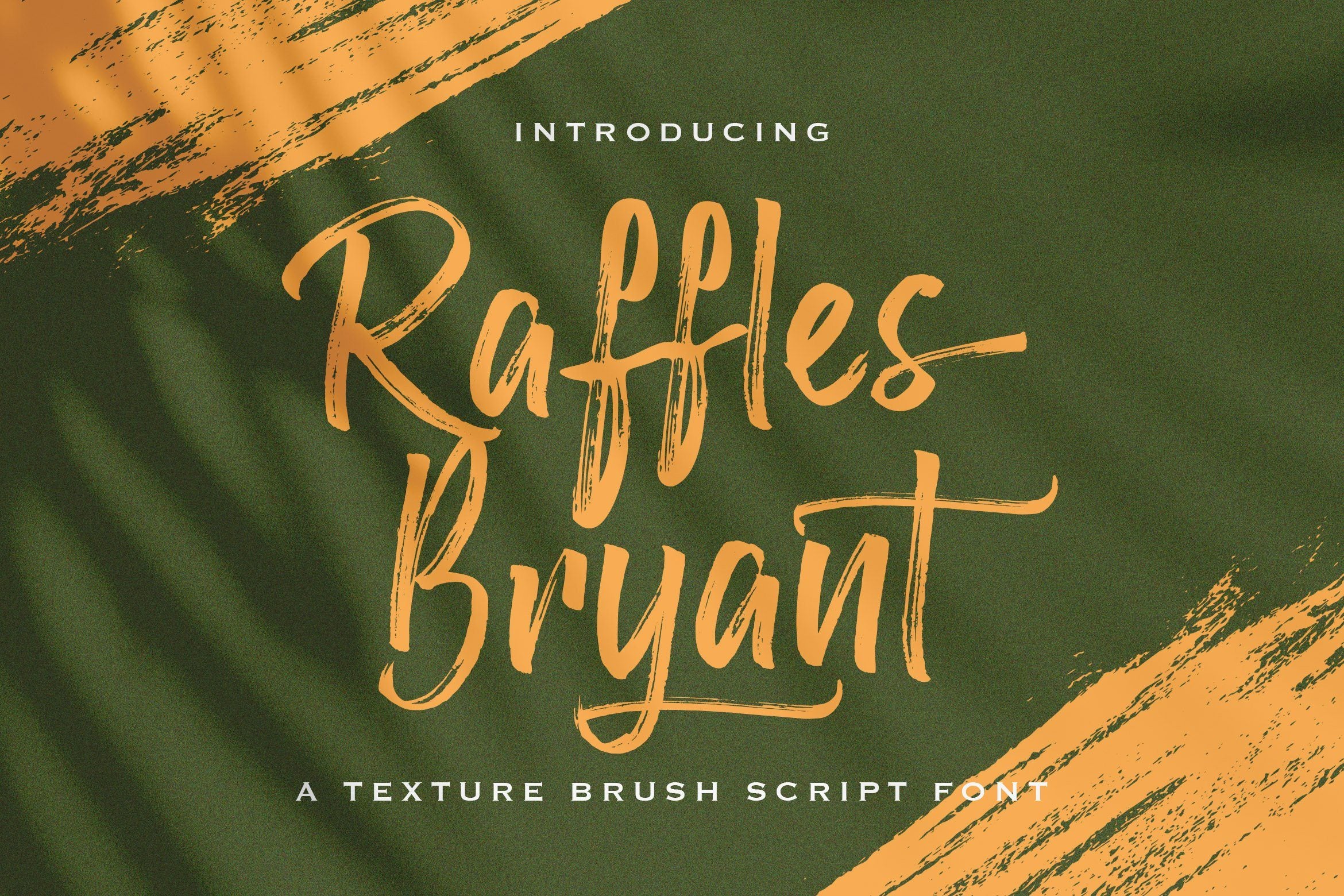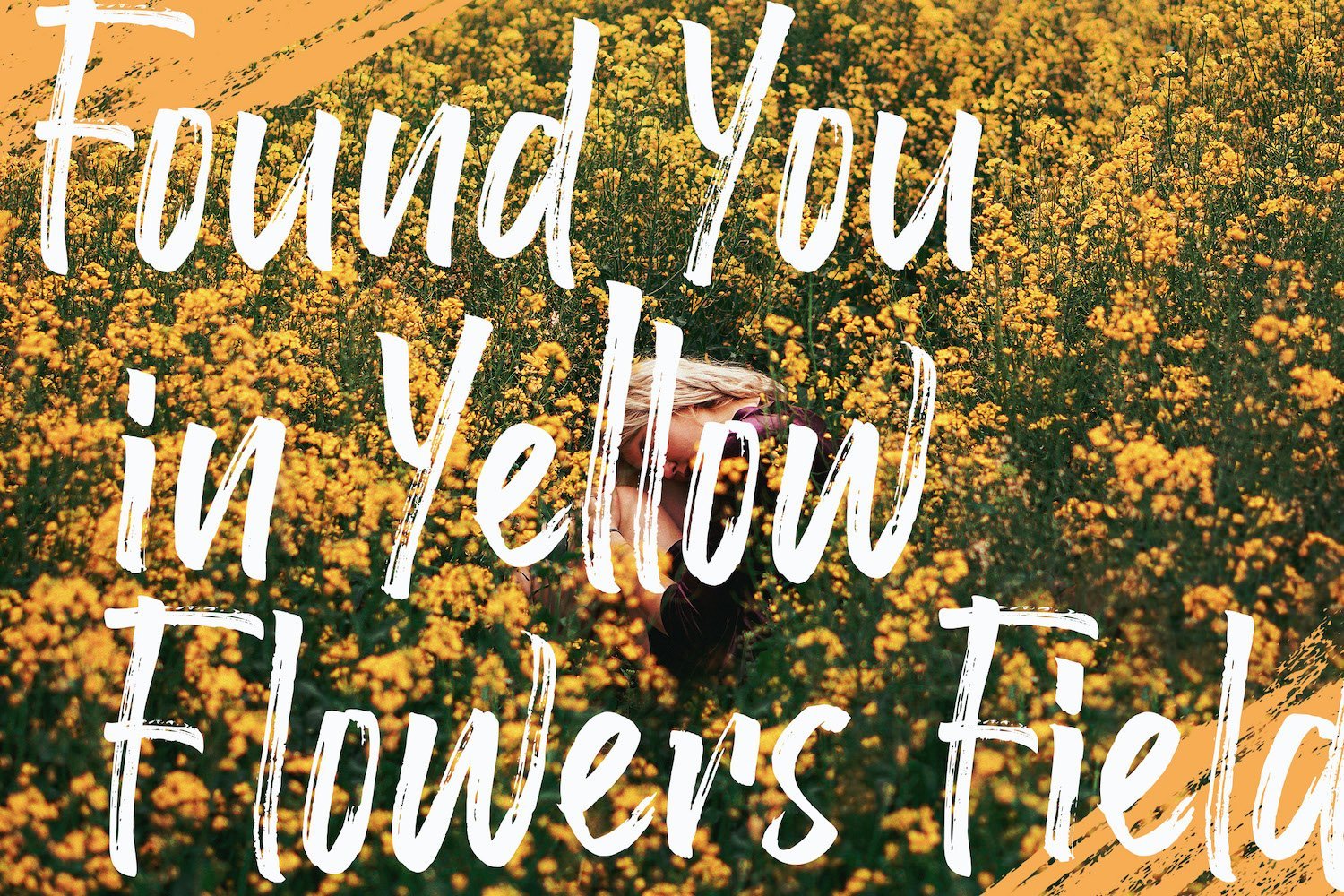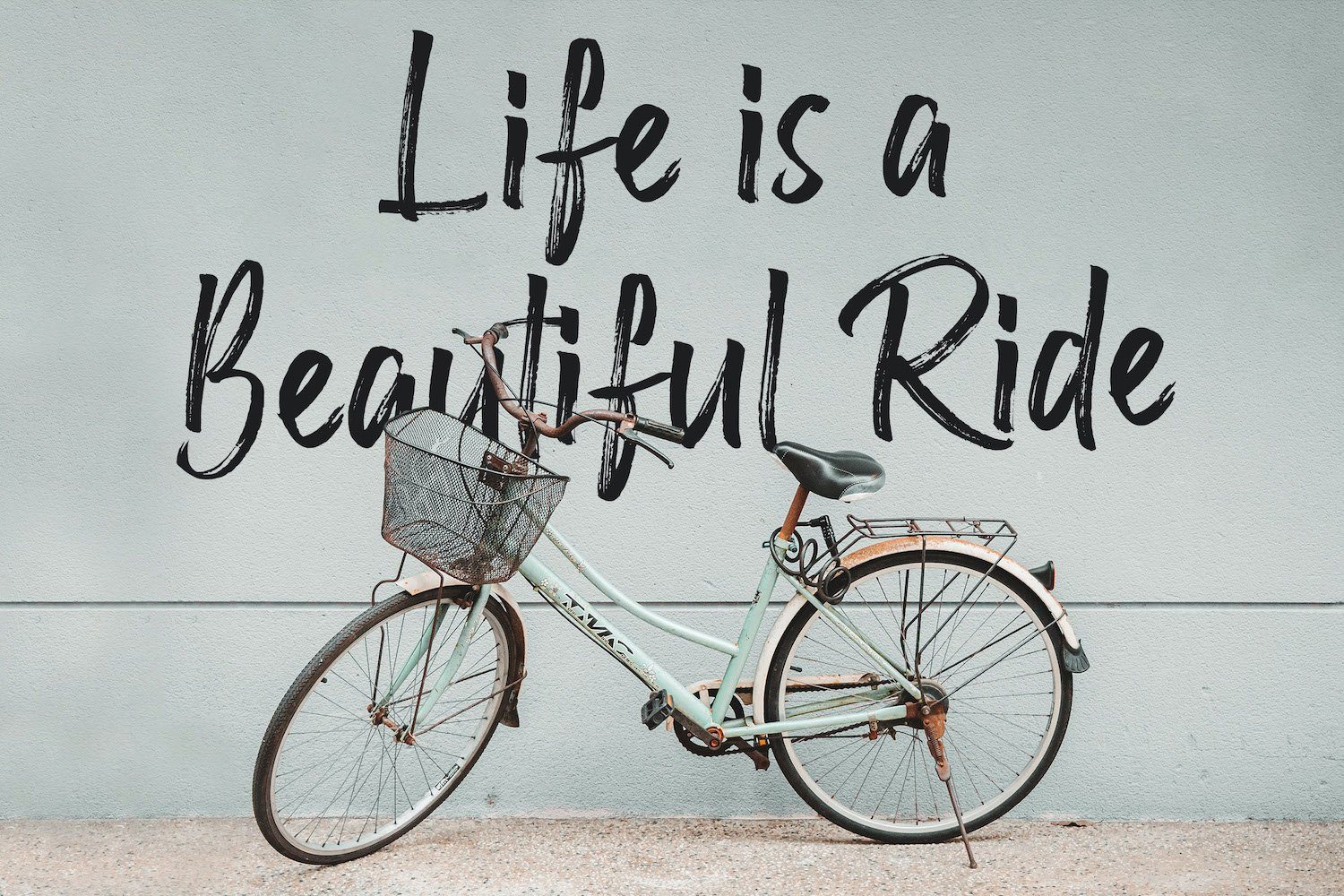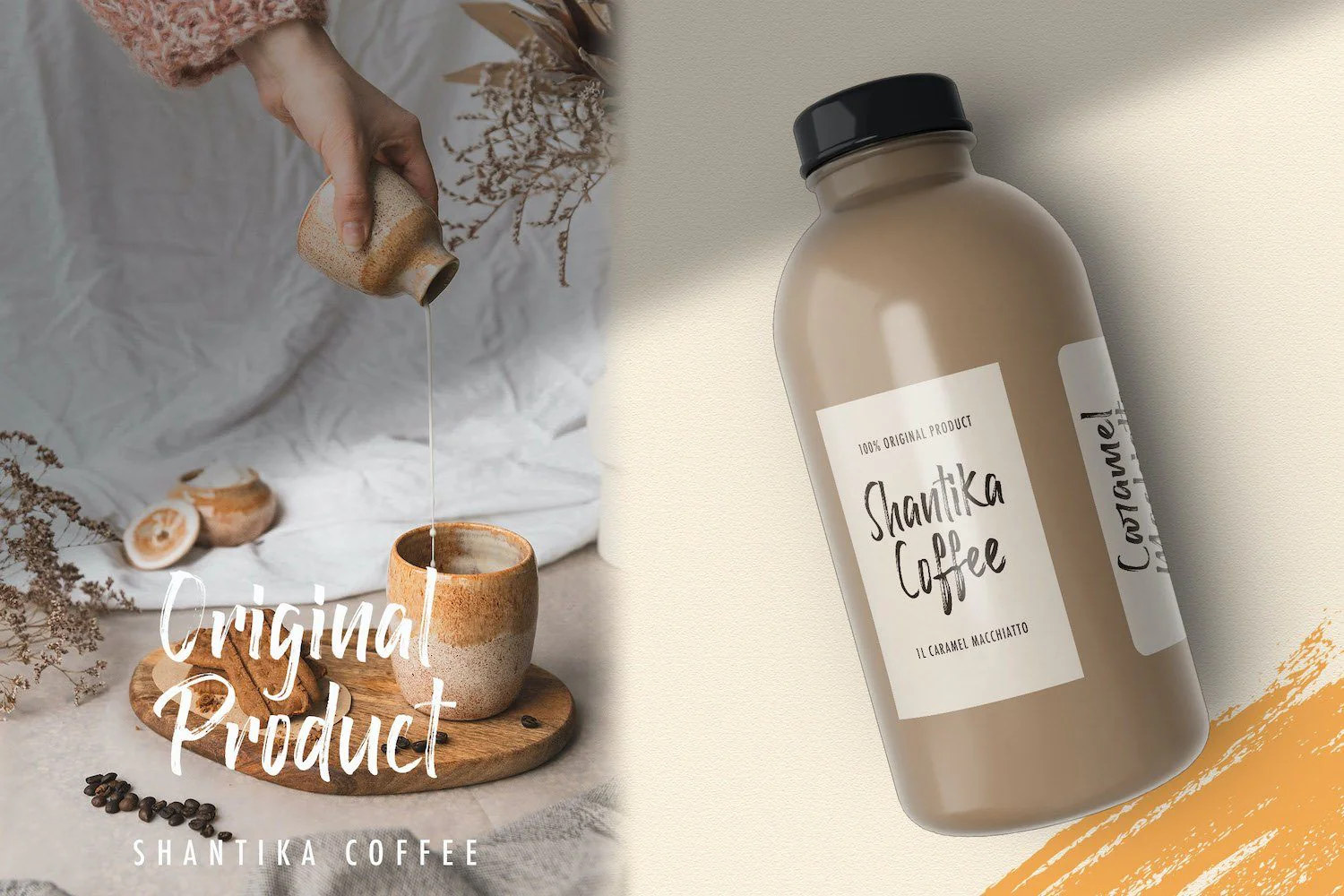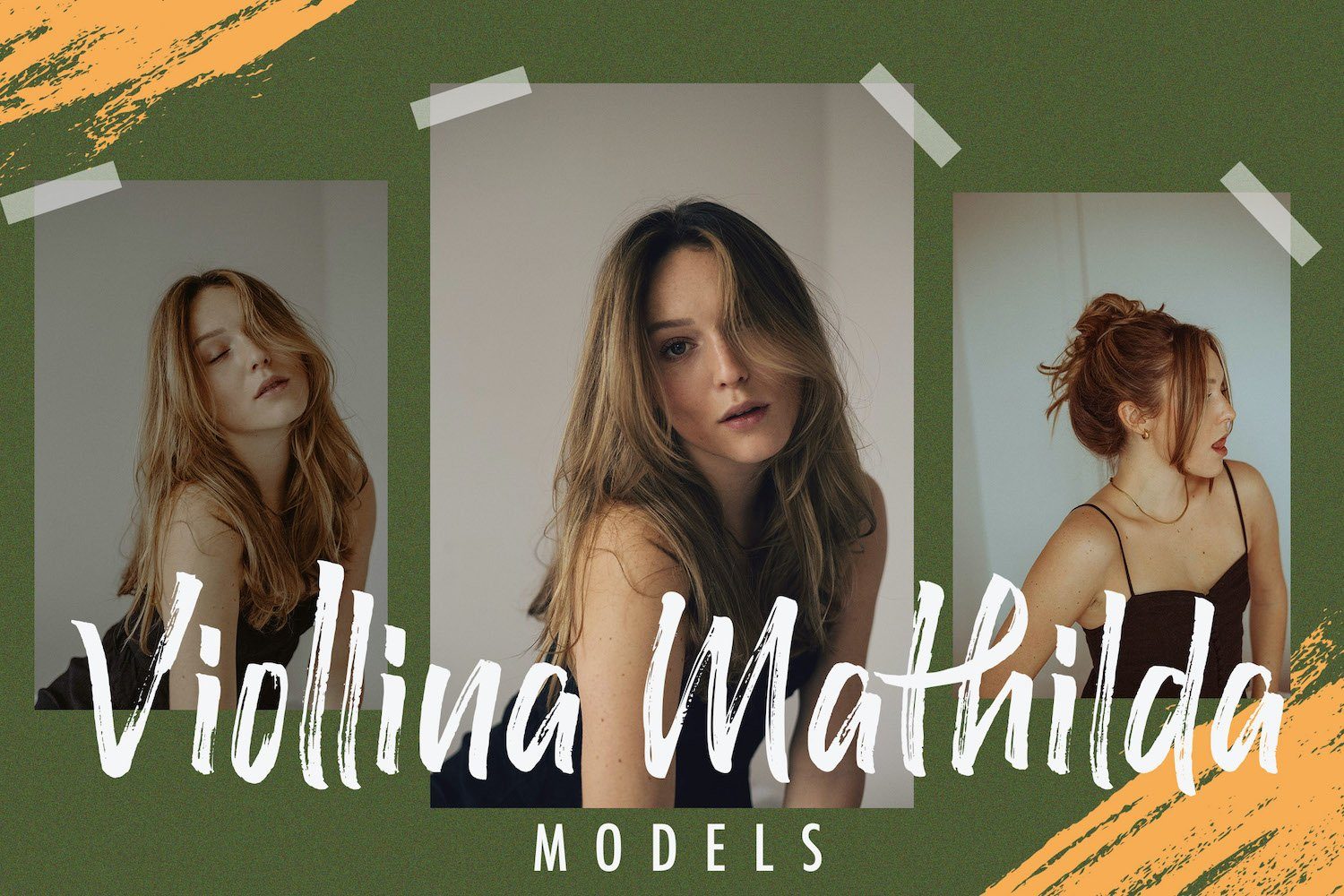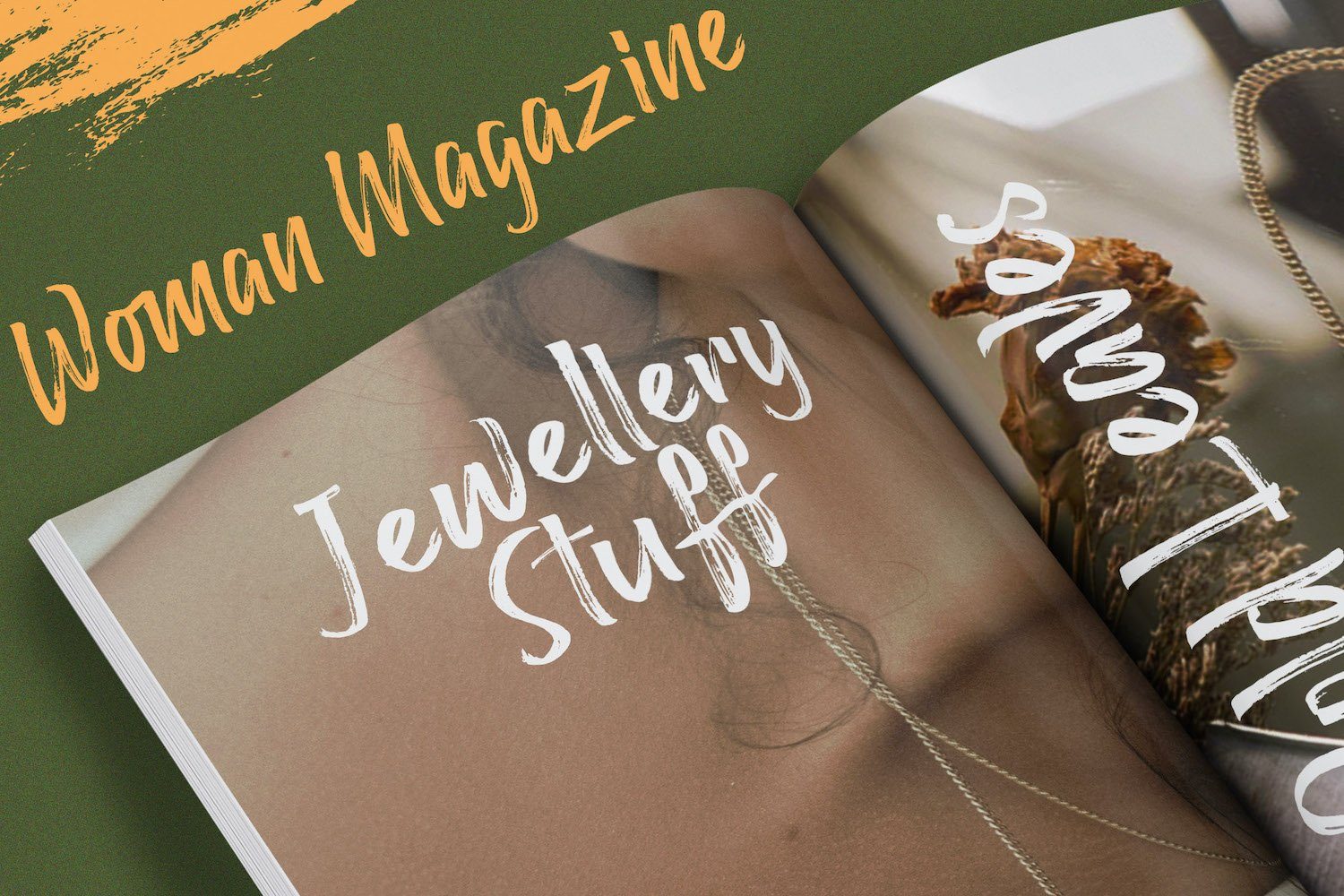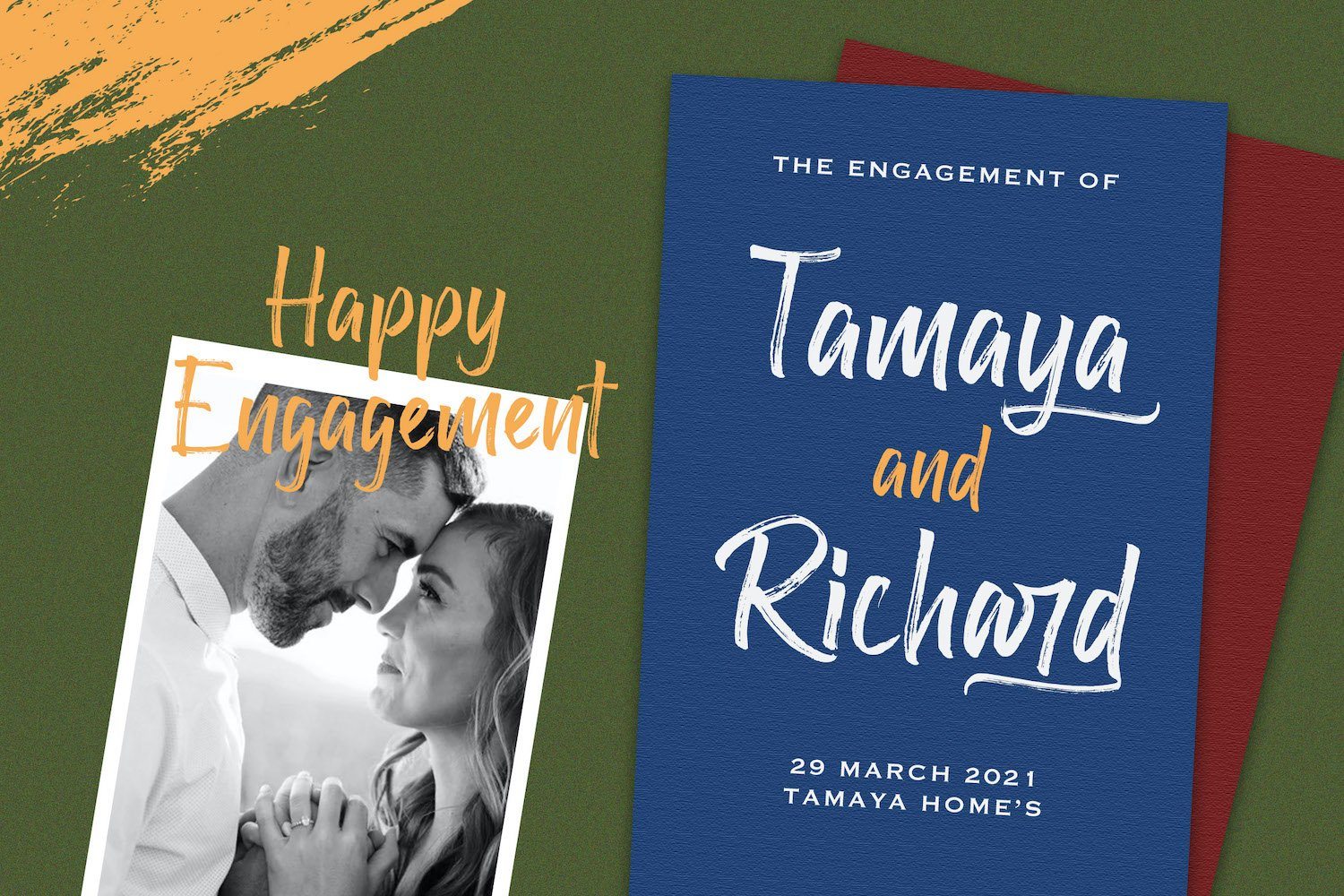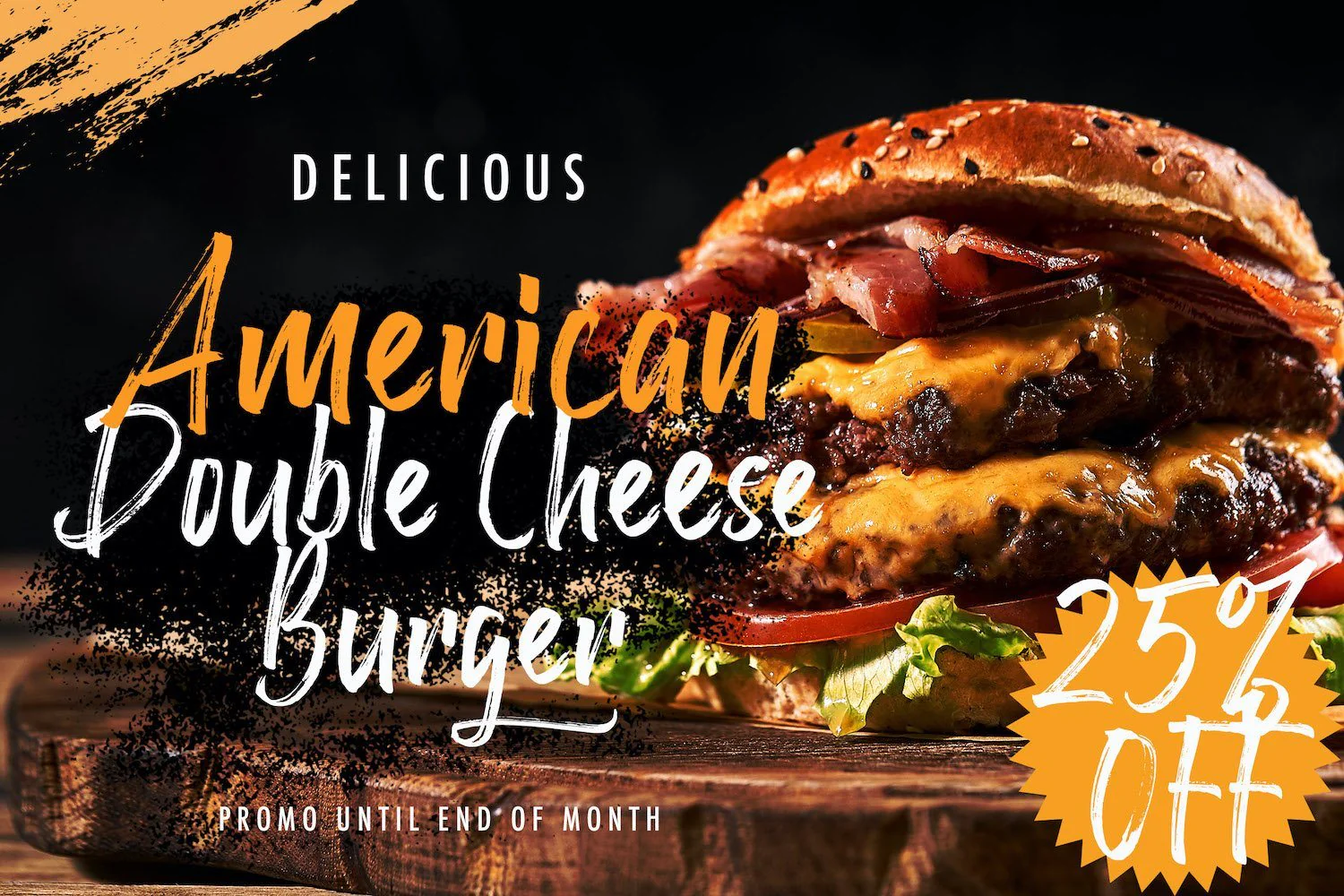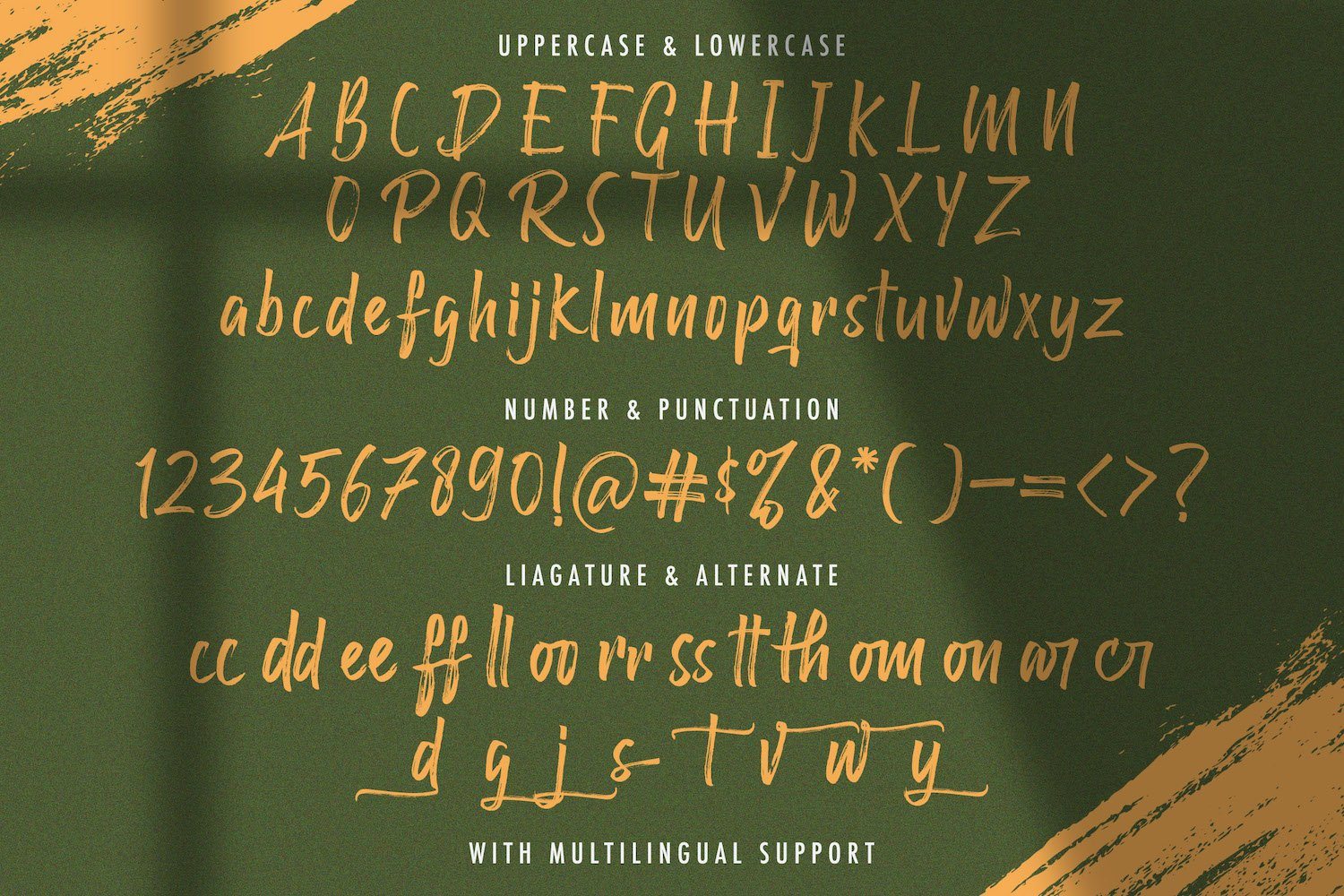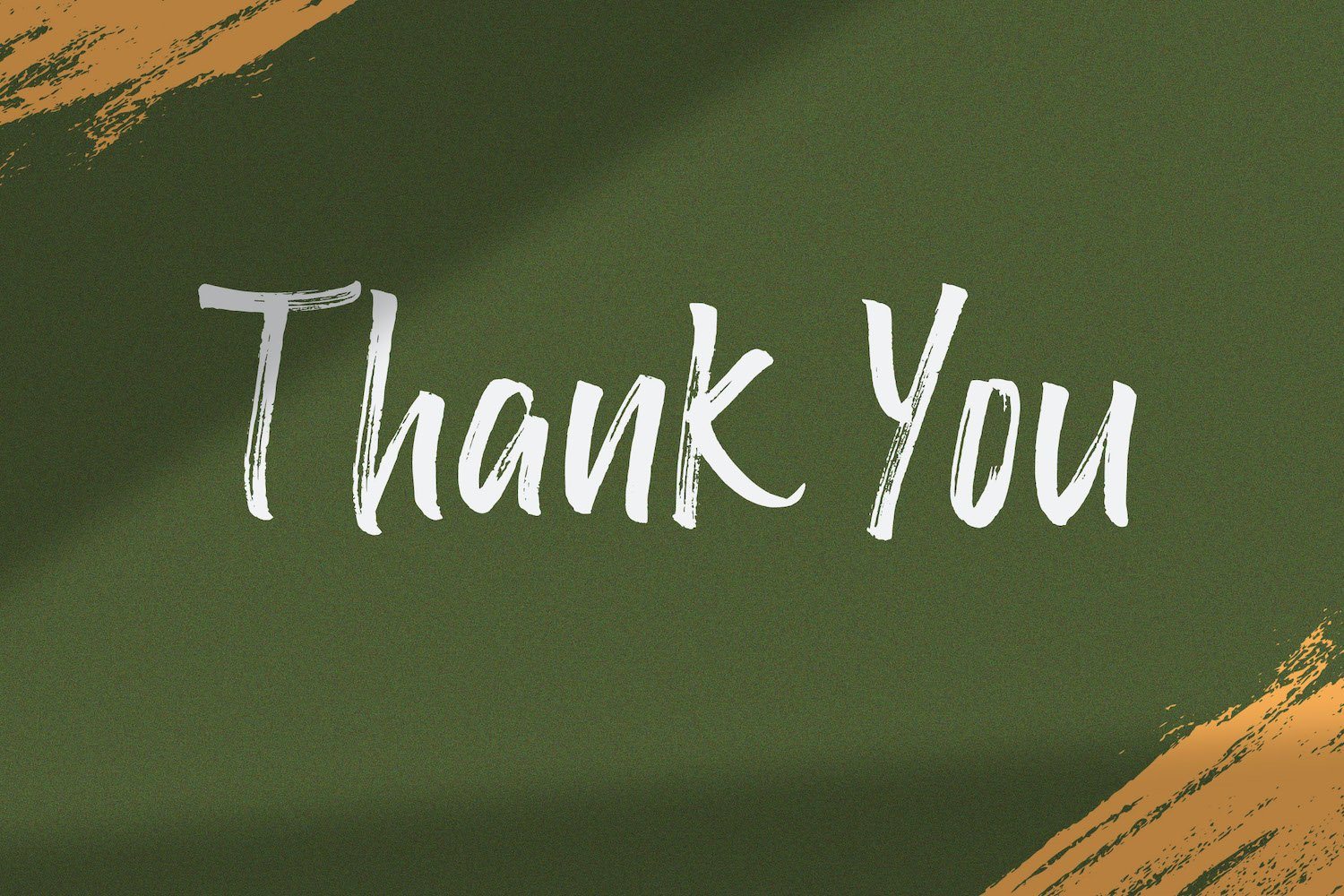
Raffles Bryant - Textured Brush Font
Introducing Raffles Bryant - Textured Brush Font
Raffles Bryant is a textured handbrush font. Get inspired by its unique and beautiful style and add it to your favorite designs!
Introducing Raffles Bryant - Textured Brush Font
Raffles Bryant is a textured handbrush font. Get inspired by its unique and beautiful style and add it to your favorite designs!